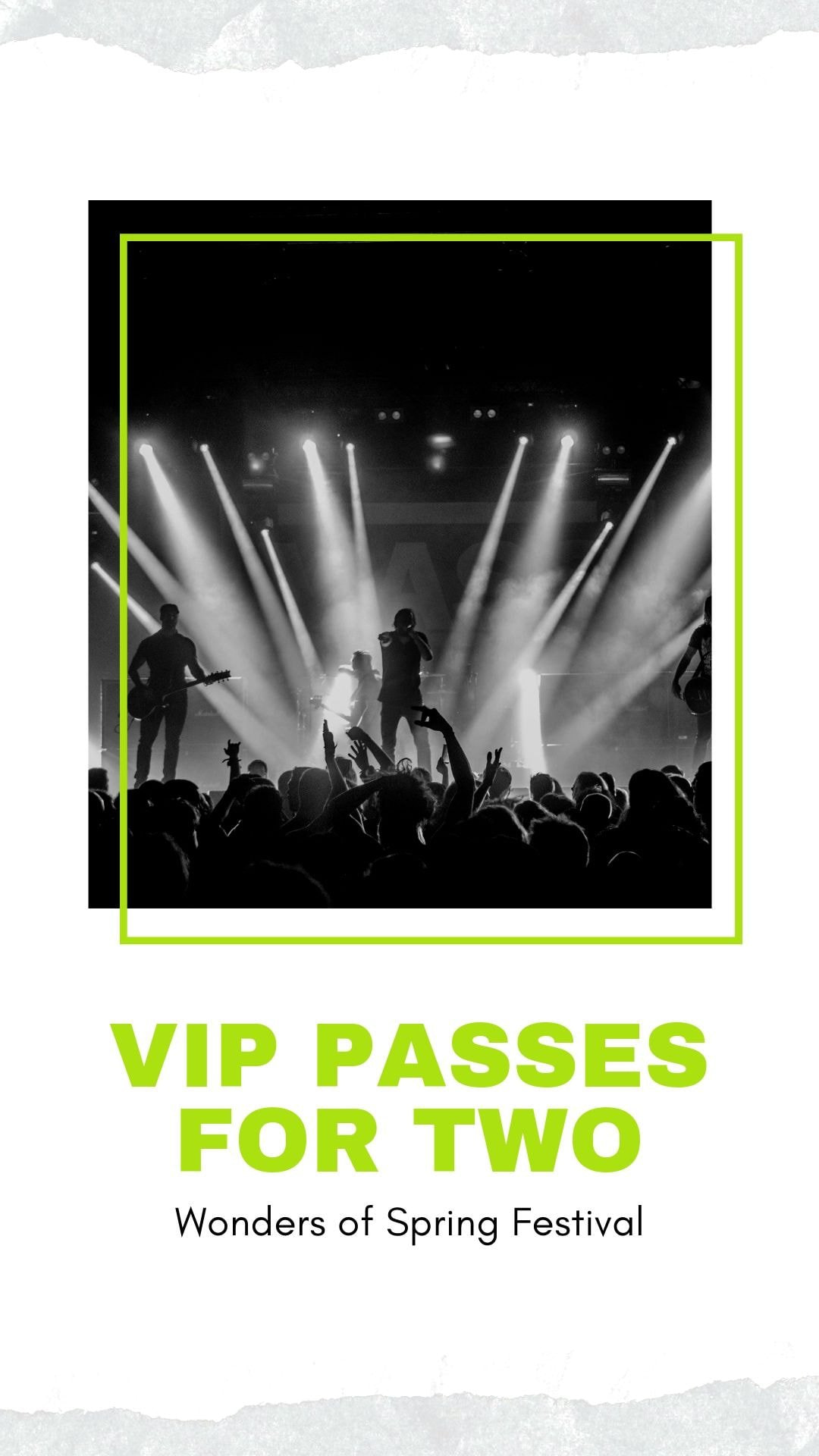
The typefaces you choose can have a huge impact on the way your brand communicates.
After all, it's not just what you say:It's how you say it. By choosing fonts that reflect your brand's values—traditional or quirky, fun or formal—you can attract the right kind of customers.
League Spartan is a modern typeface with strong structure and geometric form. This contrasts well against the elegant and more traditional style of Libre Baskerville. Using a serif for your body copy makes more dense information easy to read.
Julius Sans One offers a fine stroke, its broader baseline makes it a great display font. With a similar weight, Josefin Sans is a complementary choice for the body copy. As contrast is key for choosing type combinations, League Gothic creates a strong separator for the two sections.
A bold, rounded typeface combined with a lighter, condensed style will make for happy font pairing. All three fonts in this example are strong, masculine and easy to read.
Don’t be afraid to use one typeface across your entire brand. Finding fonts like Libre Baskerville that have style variants is a clever way to create nuance without overcomplicating your designs.
Bebas Neue is a favorite out there in the design-sphere. It’s condensed and clean form makes it excellent to use for headings. The rounded comparison of Bebas to Montserrat makes for a tidy and contemporary pairing.
Lora has brushed curves that make it a very elegant and sophisticated typeface. The effect of using italic and regular together is charming and feminine.
Roboto Condensed is a sans serif typeface with a reading rhythm that is more like that of serifs, therefore a great choice for body copy as well as headings.
With strong arches and curves, Cooper Hewitt is a classic typeface with excellent variations to use to separate your headings, subheadings and body copy respectfully.
Playfair Display is an excellent typeface to use for wedding or invitation design. The heavy style of Playfair Display Black offsets beautifully against Playfair Display Italic, creating a harmonious hierarchy.
Norwester is an attention-grabbing, geometric font best used for headings. The pairing of Norwester, Kollektif, and Montserrat is structured, bold and well-composed.
Source Sans Pro and Source Serif Pro were created to be used as a pair in design. They are another excellent example of marrying up a serif and a sans serif to create typographic harmony.
A fun pairing:Yellowtail is a fat brush script typeface with a mix of connecting letterforms. Contrasting nicely against the bold and more basic style of Open Sans Bold and Open Sans light.